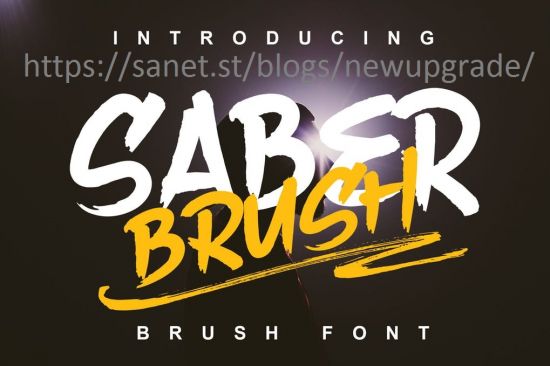
Saber Brush is natural handmade font, from paper to digital and then we digitized it carefully. This type of font is perfect for you who design something for advertisement, clothing, music album or logo.
Support Multilingual Characters (Basic Western : AÀÁÂÃÄÅCÇDÐEÈÉÊËIÌÍÎÏNÑOØÒÓÔÕÖUÙÜÚÛWYÝŸỲŸÆßÞþ )
PUA encoded
Standard Ligature